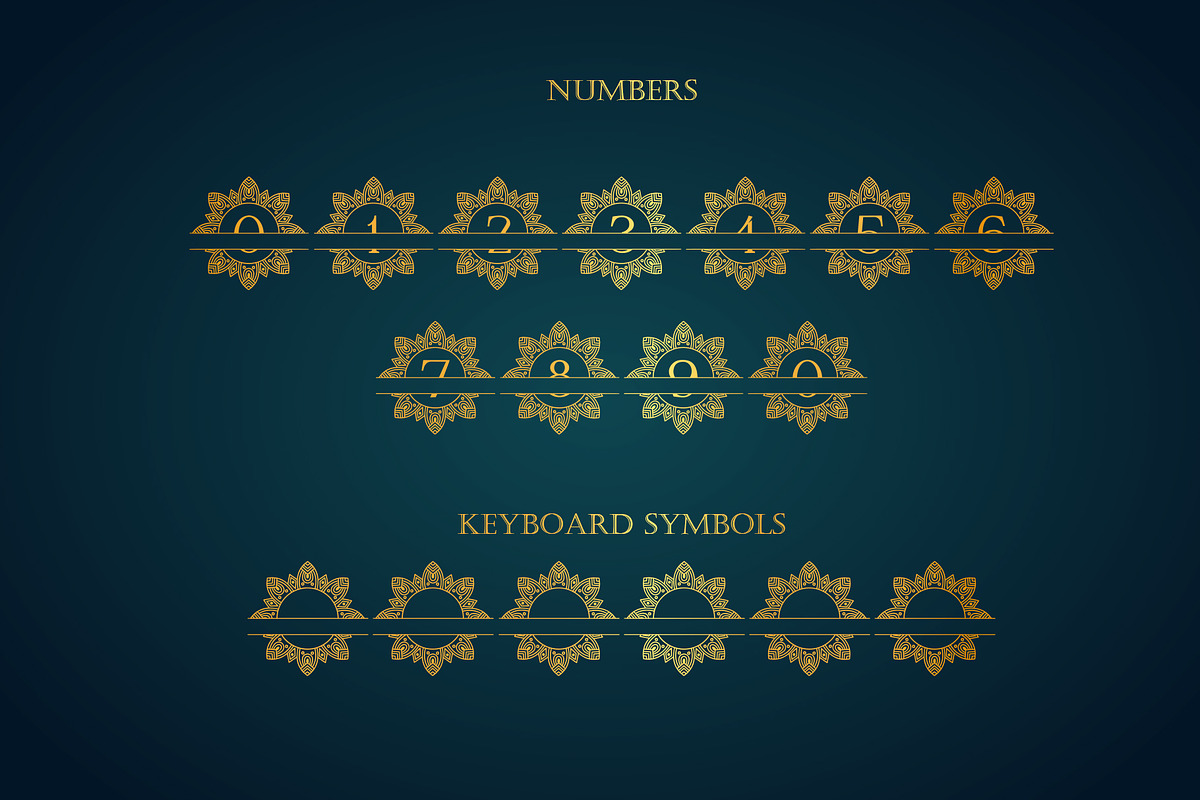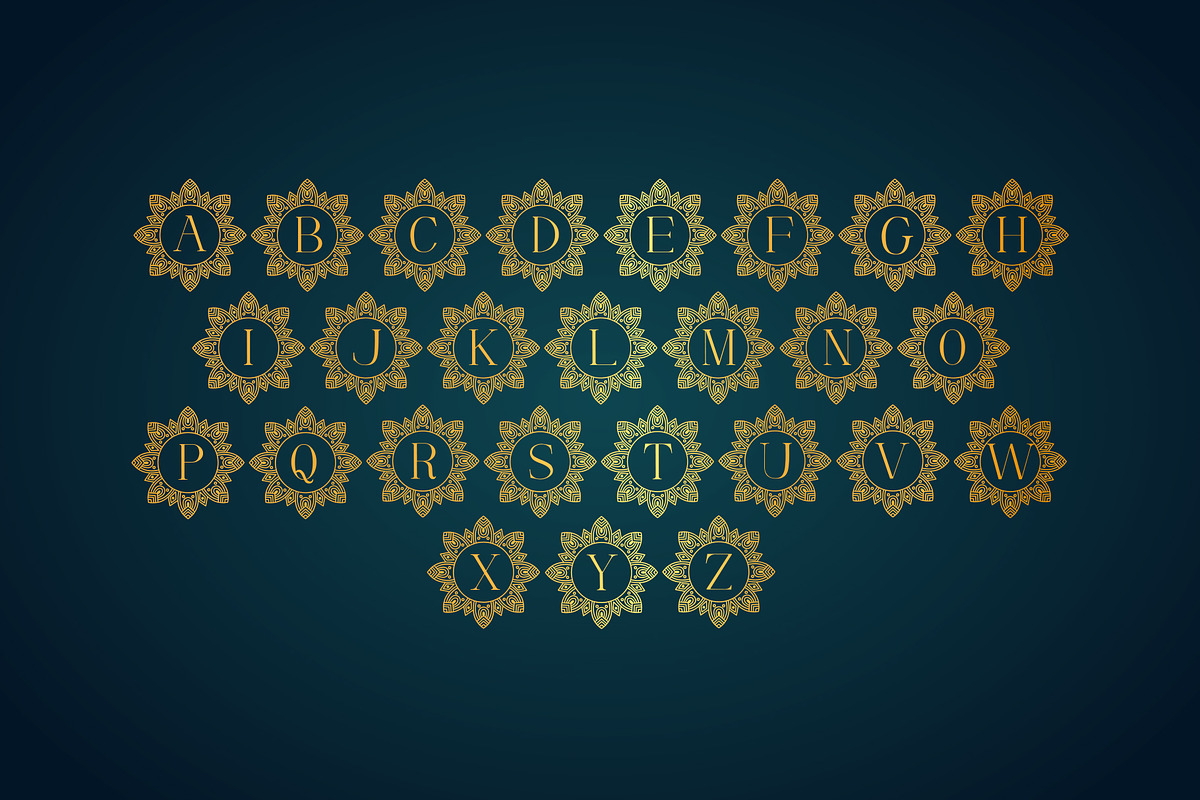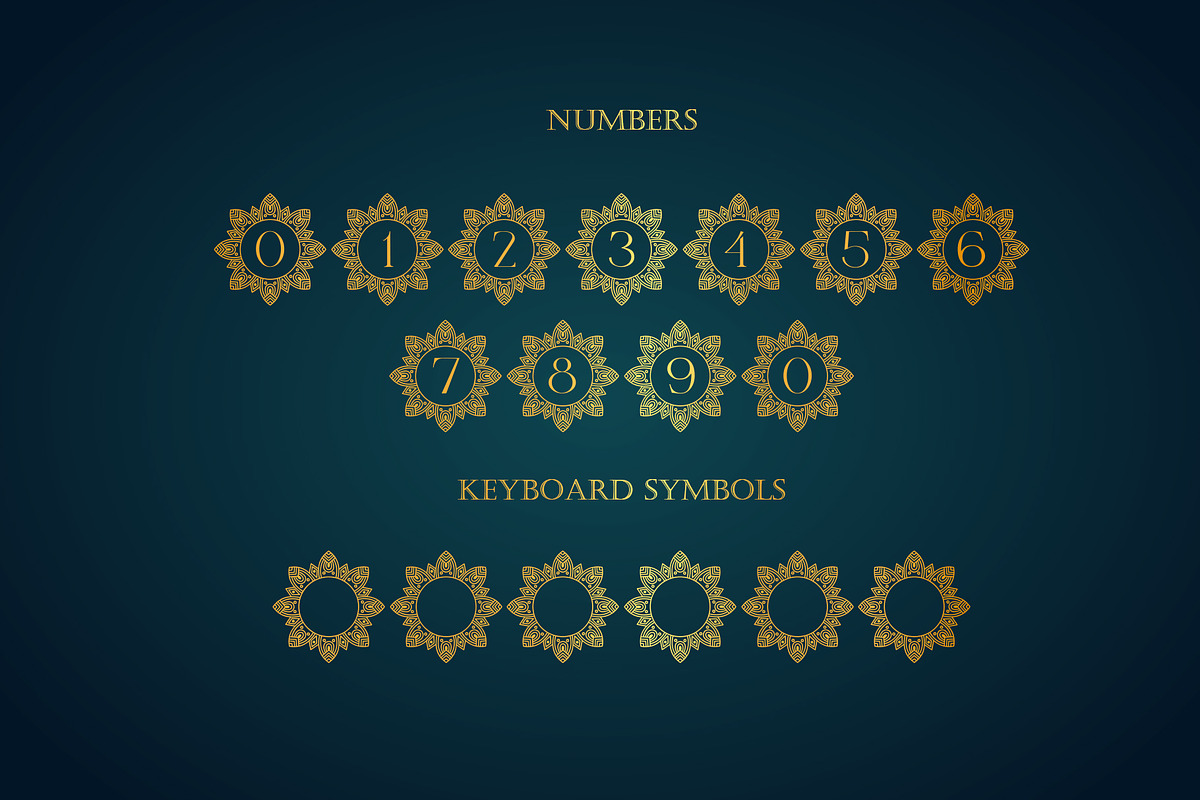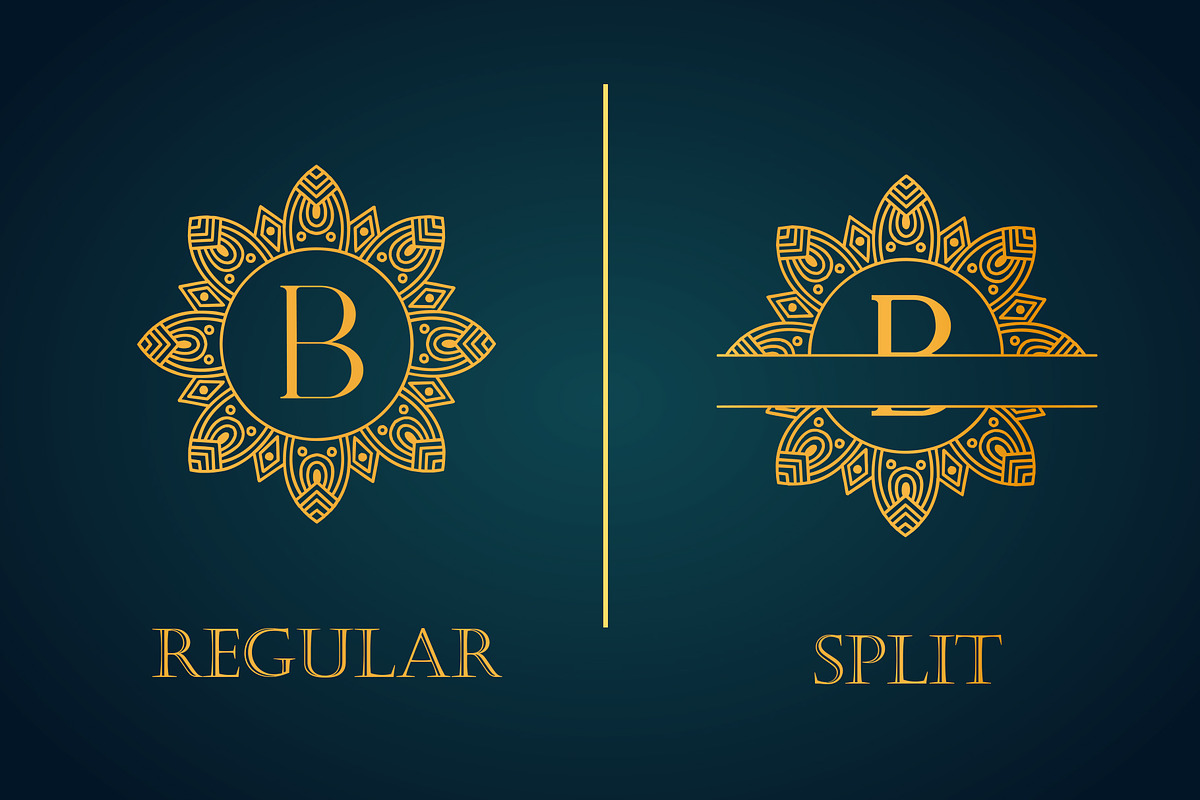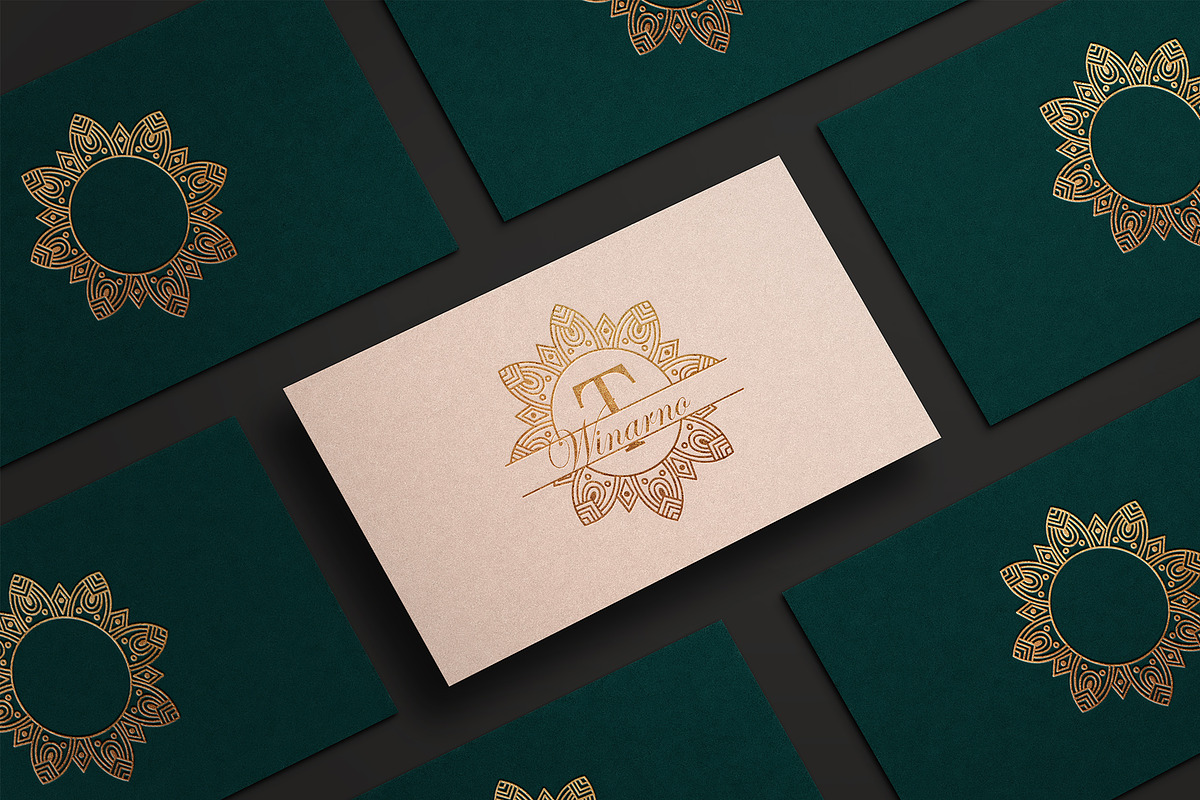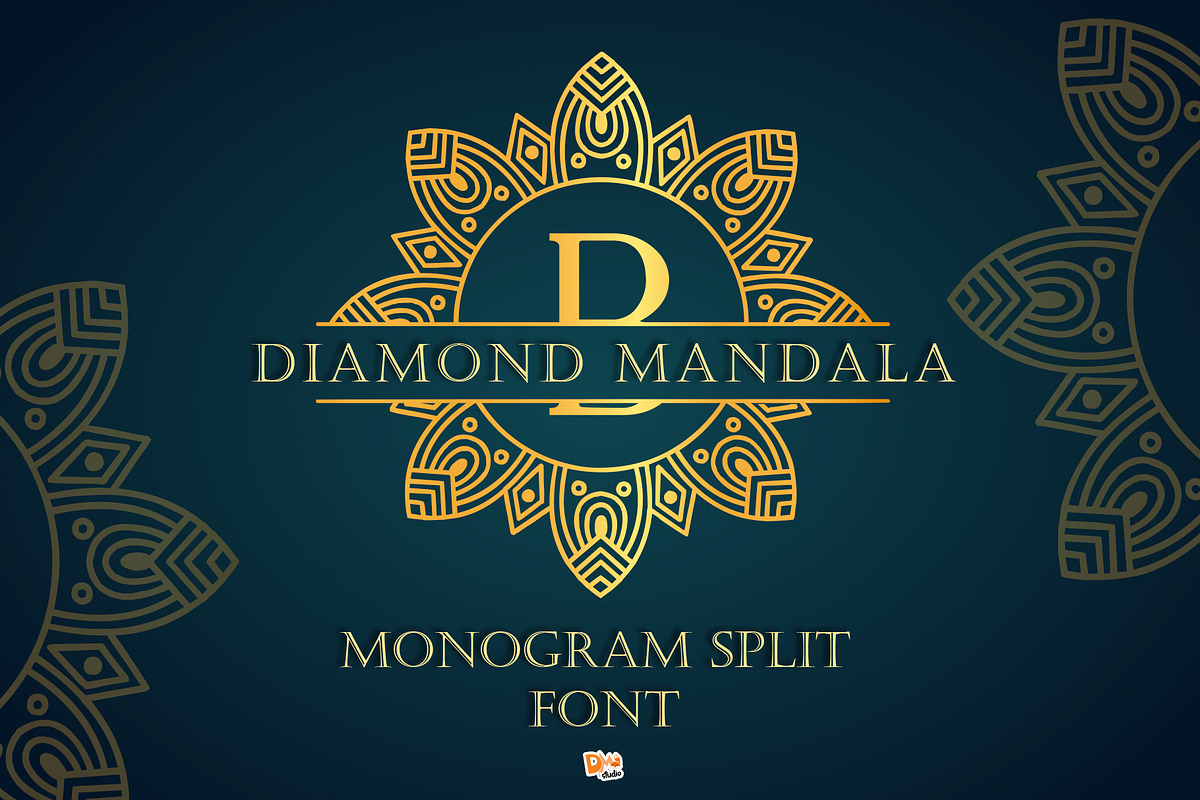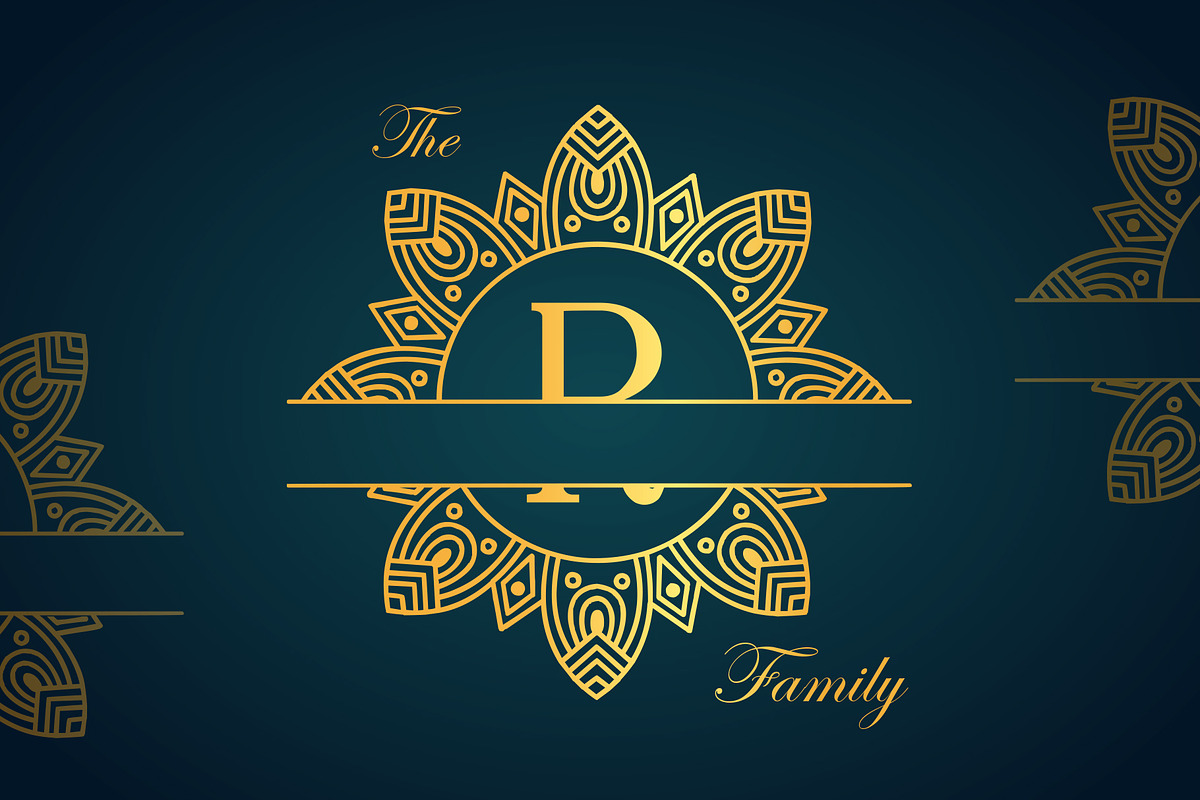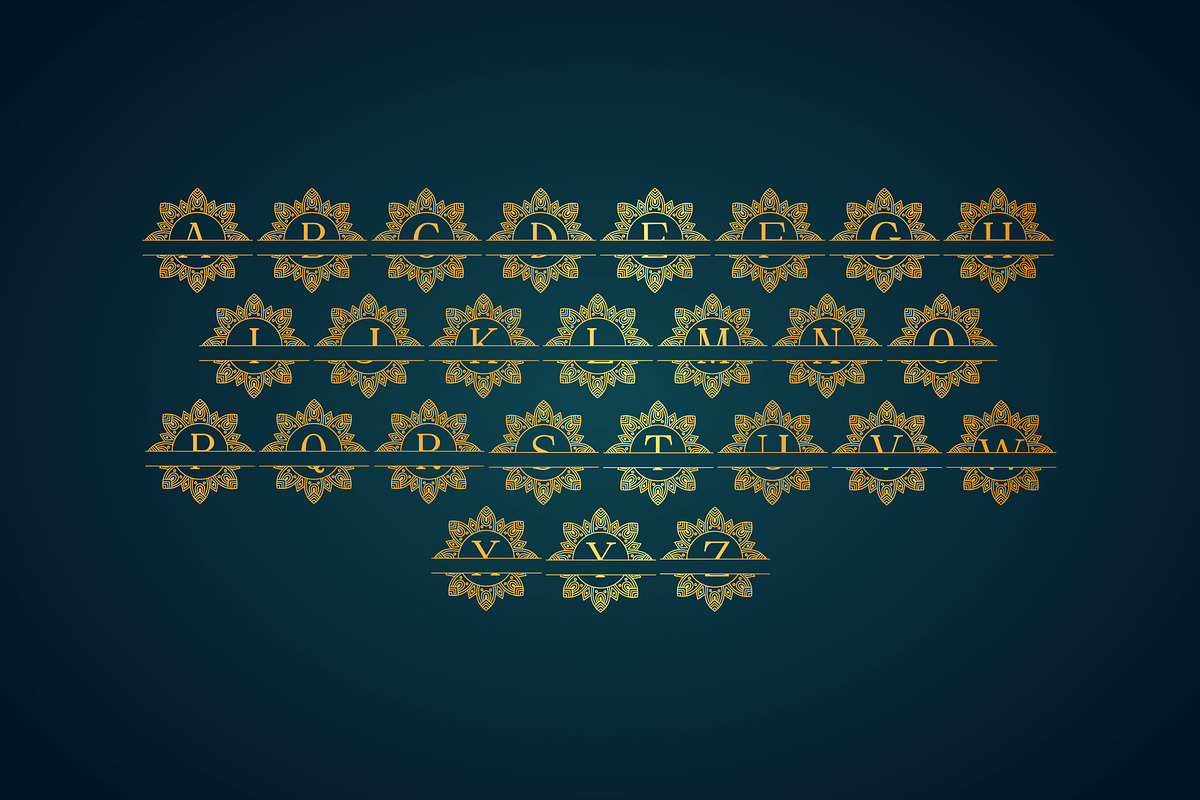
Diamond Mandala Monogram
Introducing this beauty and gorgeous Diamond mandala monogram font. Make your design more exclusive by using this monogram, comes in two styles : regular and split Features :
- All in caps
- Two styles monogram : Regular and split
- Empty frame ( entire keyboard symbols )